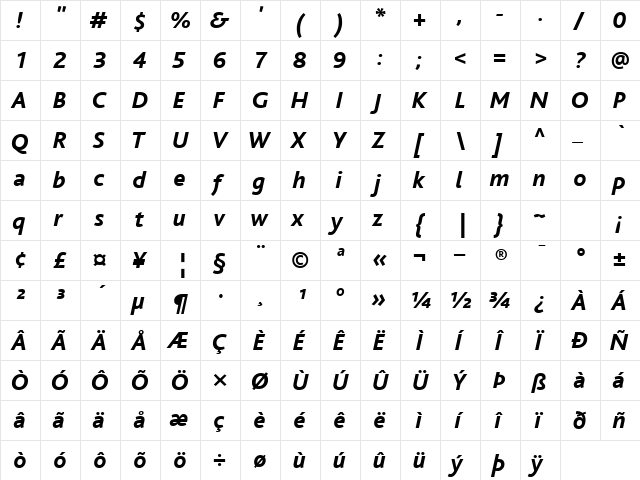
BlissExtraBoldItalic Regular Font Preview
BlissExtraBoldItalic Regular
BlissExtraBoldItalic Regular Font Details
Design Context for BlissExtraBoldItalic Typeface
BlissExtraBoldItalic takes a measured approach to typography — its balanced proportions and neutral character make it a reliable workhorse for both digital and print work. Its italic angle brings a sense of urgency and motion to the letterforms. Its bold stroke weight gives it real presence on the page.
Pro Tip: Try BlissExtraBoldItalic for annotation and caption copy alongside an upright companion — the contrast in angle creates a dynamic but ordered typographic system.